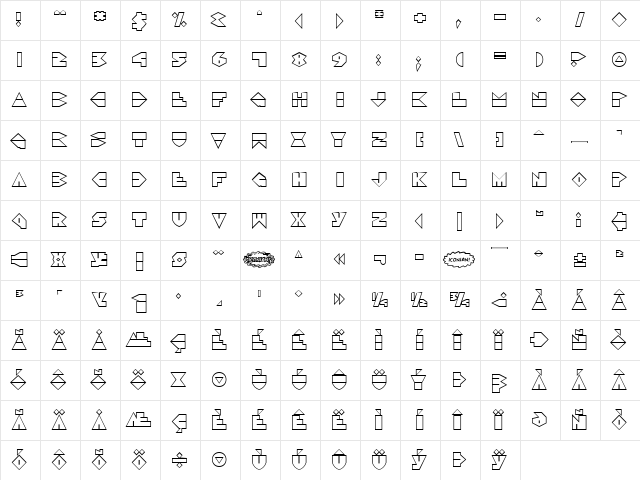
Disco Dork Outline Outline
Design Context for Disco Dork Outline Typeface
Disco Dork Outline is built around its visual character rather than neutral utility — its distinctive forms are designed to make an impression at display sizes.
Font Pairing: Pair with a clean neutral sans-serif for body copy to let Disco Dork Outline's character lead without overwhelming the composition.
Pro Tip: Treat Disco Dork Outline as the centrepiece of your typographic hierarchy. One strong heading set in a decorative face can carry an entire layout.